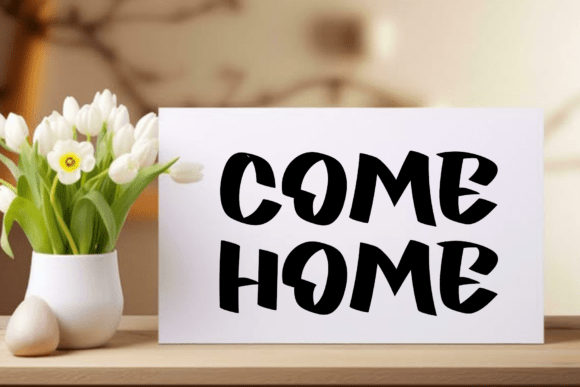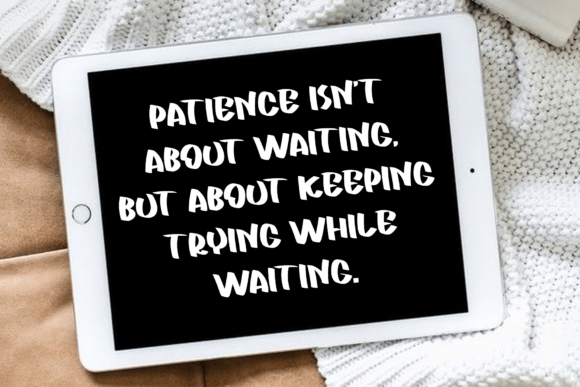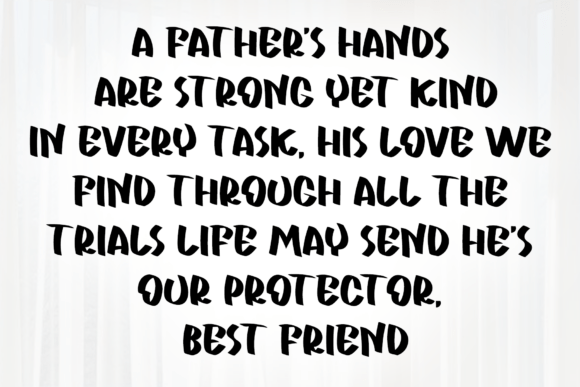
Introduction to Signal Originals Font
Signal Originals is a lovely and timeless handwritten font.
It is the best choice for creating eye-catching logos, branding, and quotes Every letter has a unique and beautiful touch, which will make your design come alive.